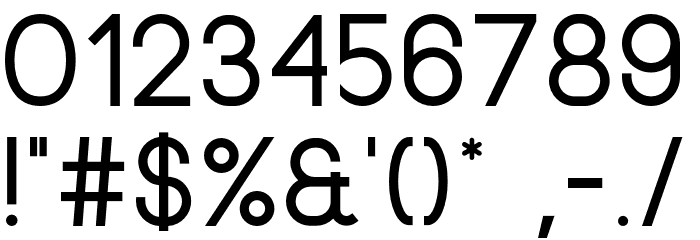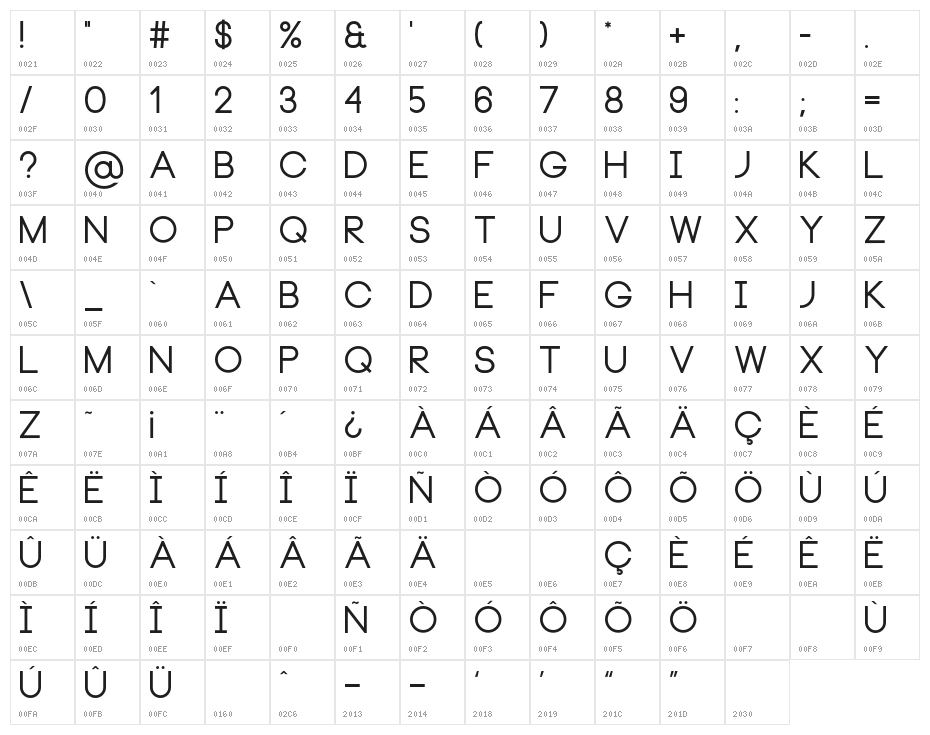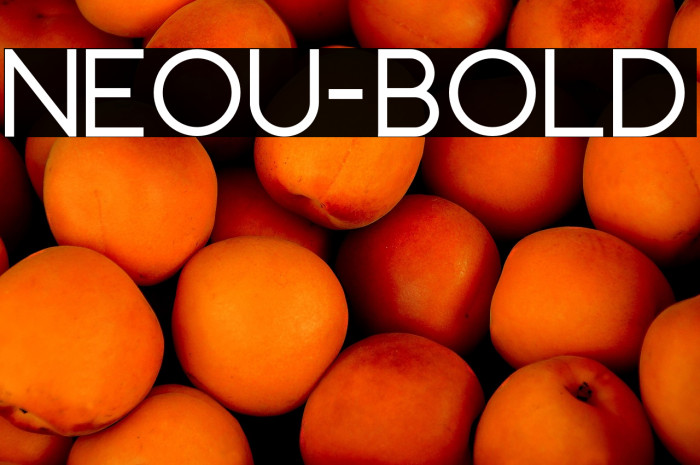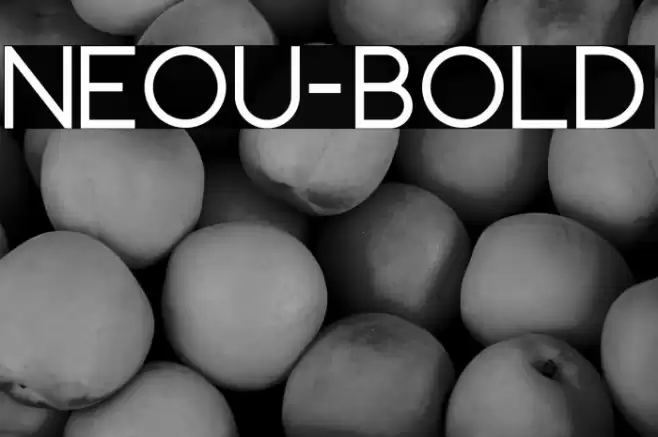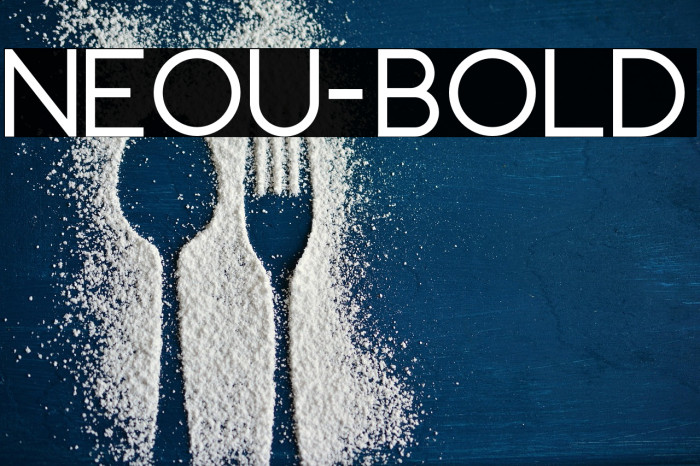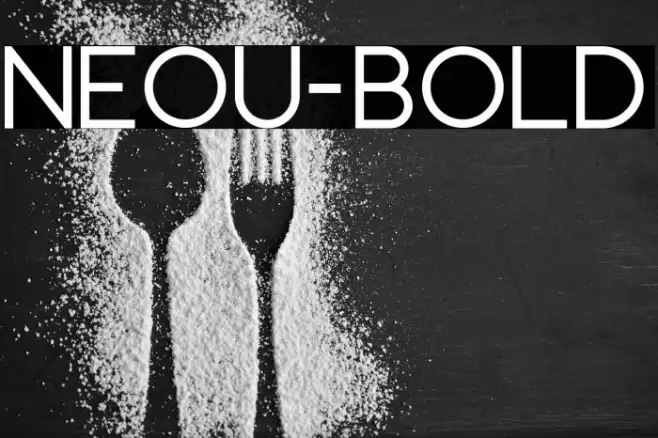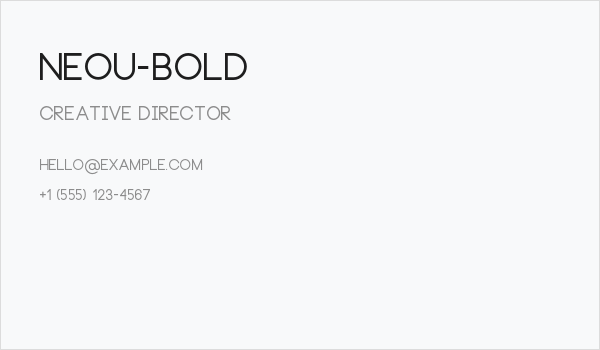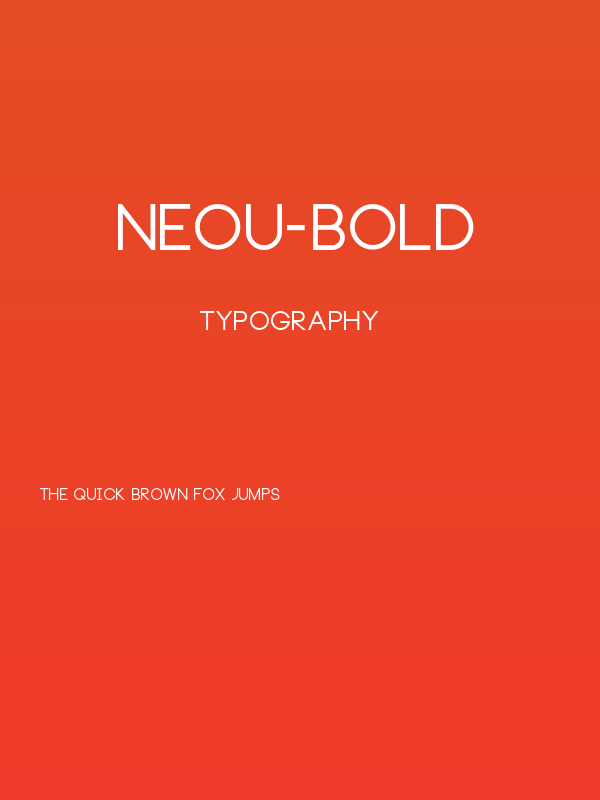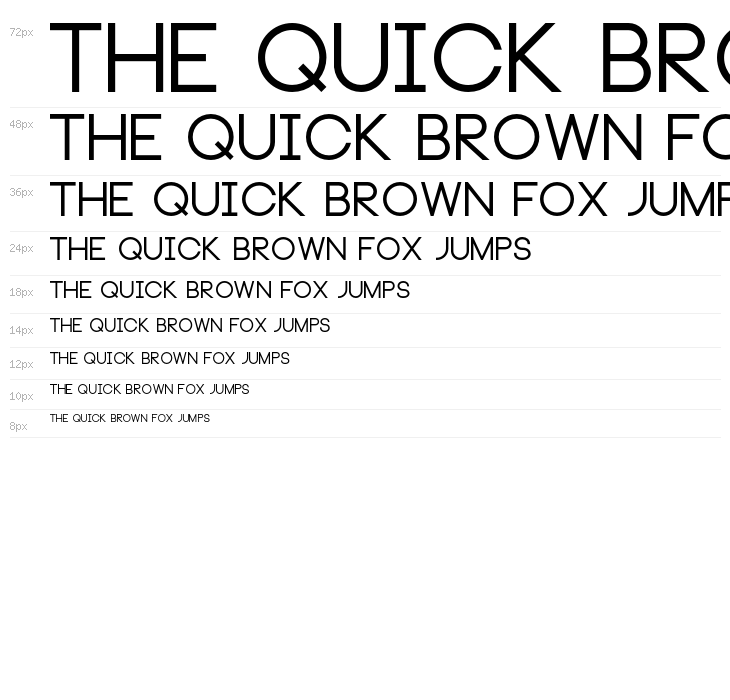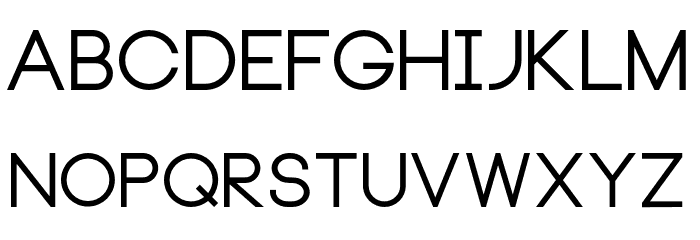
Neou-Bold Font
Neou-Bold Description
This font exhibits a clean and modern sans-serif style with a bold weight, characterized by its geometric shapes and uniform stroke widths. The uppercase letters are tall and slightly condensed, providing a sleek and professional appearance. The lowercase letters maintain a consistent height, enhancing readability. The numerals are clear and distinct, matching the overall geometric aesthetic. Special characters are designed with simplicity and clarity, ensuring they integrate seamlessly with the rest of the typeface. This font is versatile, suitable for a variety of design applications where a contemporary and bold look is desired.
Use CaseHeadlines, Logos, Digital Interfaces
Proposed ProjectsIdeal for branding, advertising, digital interfaces, and editorial design.